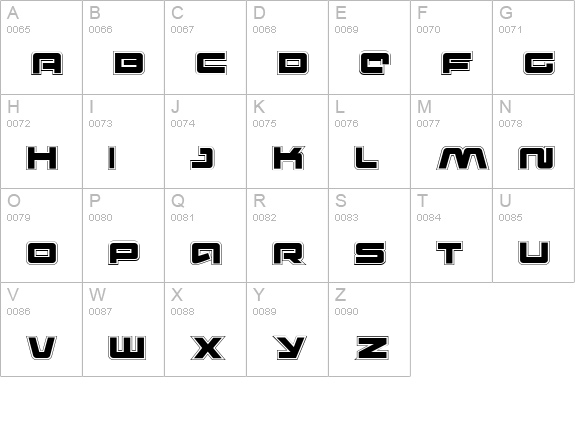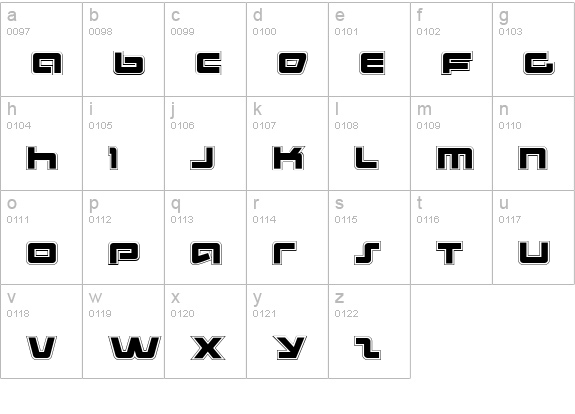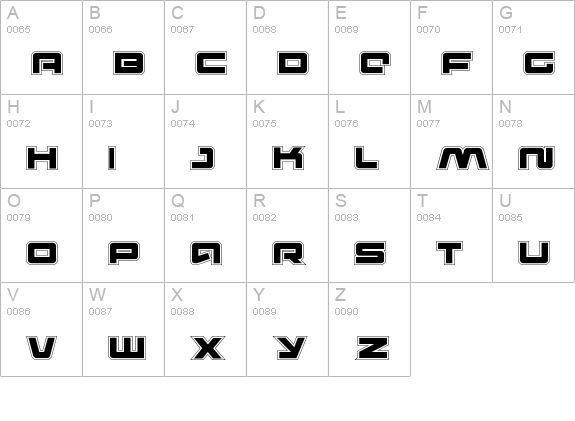
Pulse Rifle Academy font is a bold and futuristic typeface that is perfect for adding a touch of modernity to your designs. With its sharp edges and sleek lines, this font exudes a sense of power and sophistication. The distinct characters of Pulse Rifle Academy make it ideal for use in branding, logo design, and display purposes. The best part about Pulse Rifle Academy font is that it is completely free! You can easily download this eye-catching typeface at FontsMarket.com and start using it in your projects right away. Whether you're looking to make a statement with your typography or simply want to add a touch of edge to your designs, Pulse Rifle Academy font is sure to impress. Unlock the power of this striking font and take your designs to the next level today!